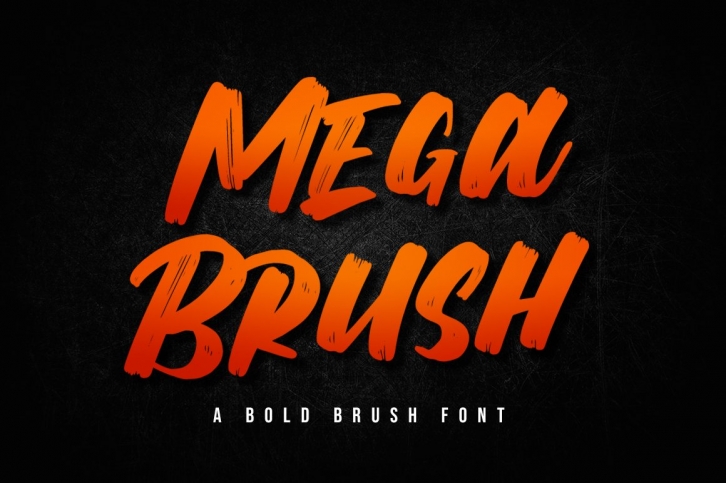
Mega Brush is a trendy and unique font with an authentic style. It was designed by Fatma Studio and it's a great choice for creative people who need such a font. It was released on March 29, 2021 and the file size is 20.27 MB. Mega Brush will add an organic vibe to any design idea!